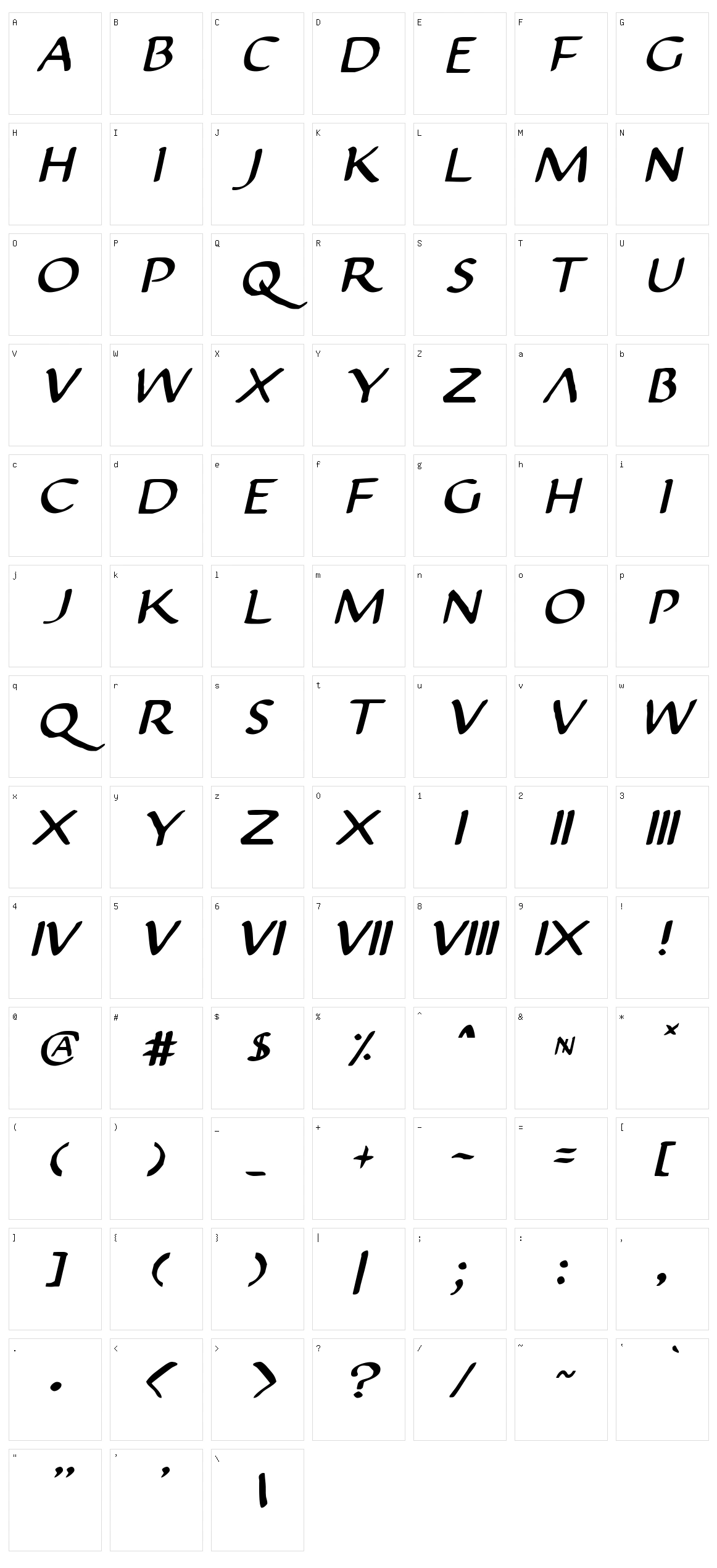
Justinian Font and Justinian 2 Font for Windows versions 2
Justinian 2 is the same as Justinian, except that the space character in Justinian 2 contains a round dot for a more Roman feel to the font.
These fonts has alternate characters in the upper and lower cases. For contemporary style 'U' and 'A' use the upper case letters in these fonts.